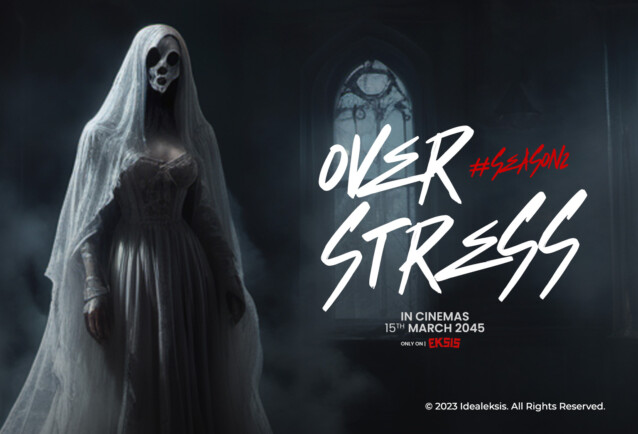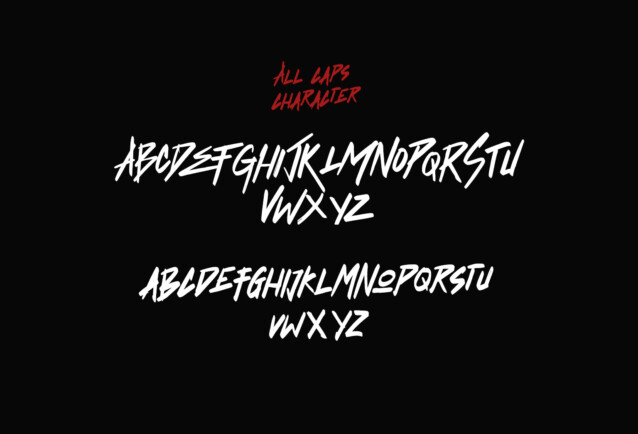
Crack Over Font
Crack Over Font is a haunting font brush that evokes an aura of sinister elegance. With its sharp and menacing strokes, this font exudes an air of darkness, making it perfect for projects that demand a spine-chilling and mysterious atmosphere. The brush strokes are intentionally crafted to culminate in pointed edges, adding an extra layer of intensity to the overall design.